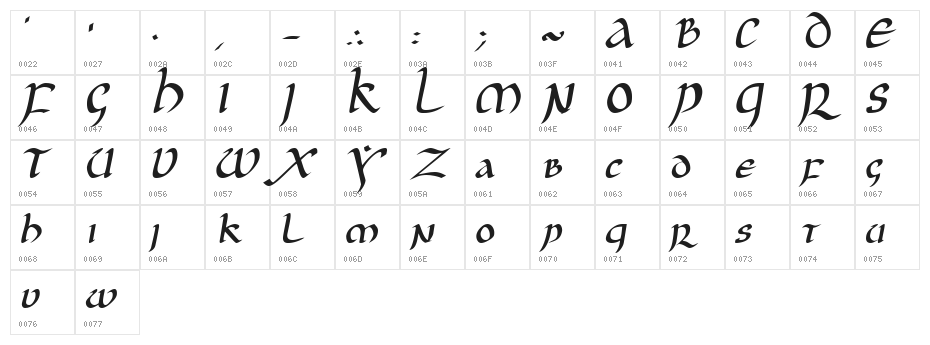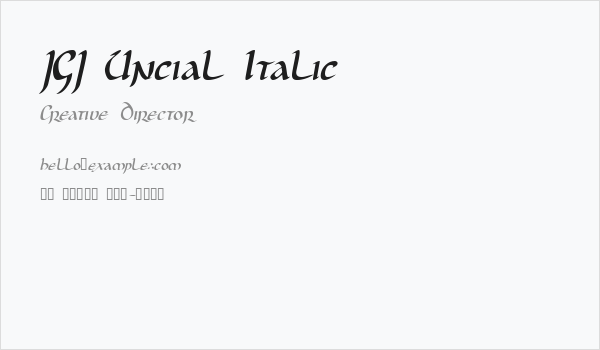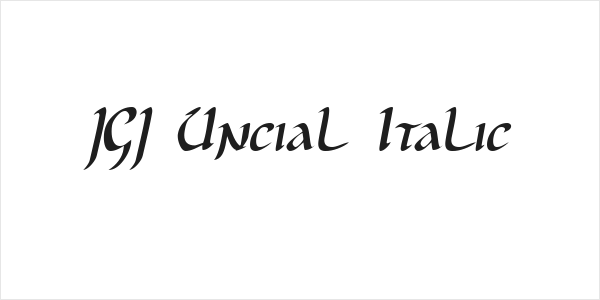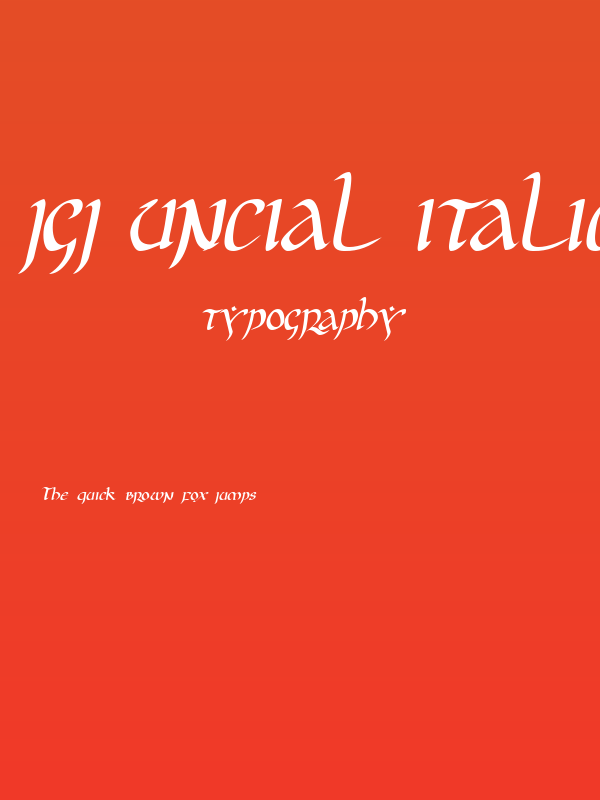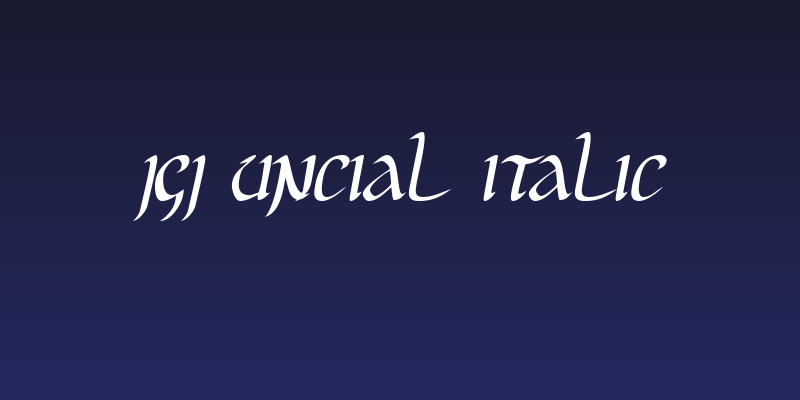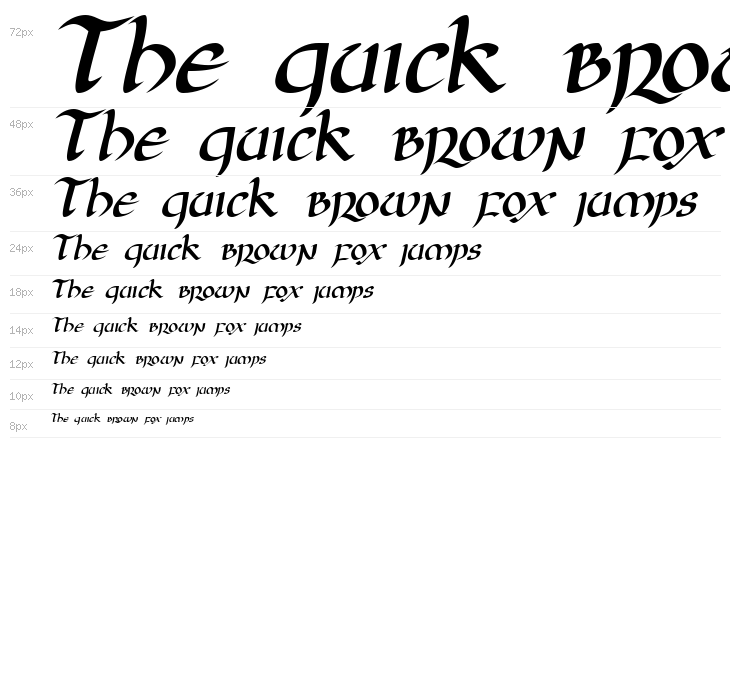
JGJ Uncial Italic Font
JGJ Uncial Italic Description
This font features a distinctive uncial style with a modern twist, characterized by its flowing, italicized letterforms. The uppercase and lowercase letters maintain a consistent style, with elegant curves and a slight slant that adds a dynamic feel. The characters are well-balanced, with a moderate contrast between thick and thin strokes, giving it a refined yet approachable appearance. The font's unique style is reminiscent of historical scripts, yet it remains versatile for contemporary use. It includes a full set of uppercase and lowercase letters, numerals, and a selection of special characters, making it suitable for a variety of design applications.
| Use Case | Headlines, Logos, Artistic projects |
| Proposed Projects | Ideal for projects requiring a historical or artistic touch, such as book covers, invitations, or branding for creative industries. |